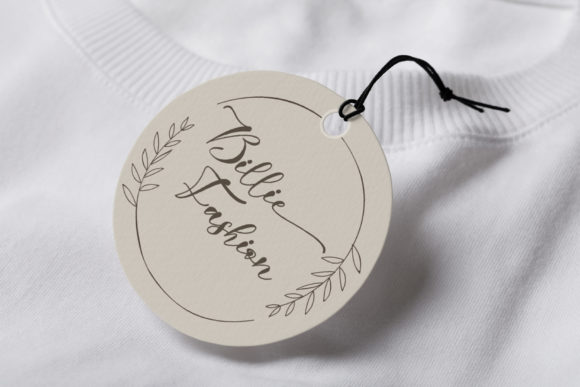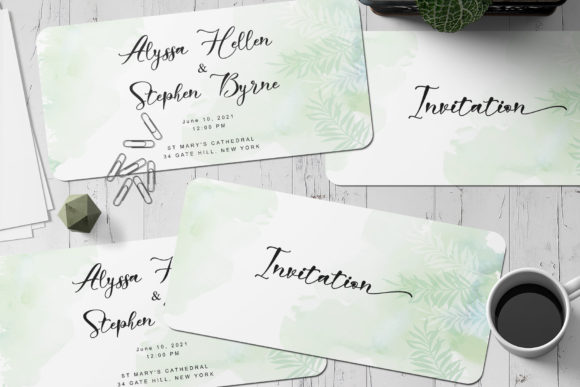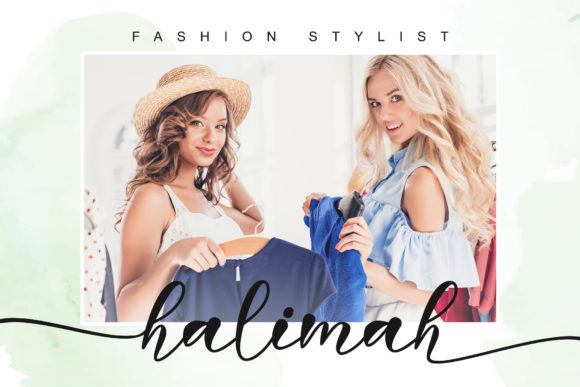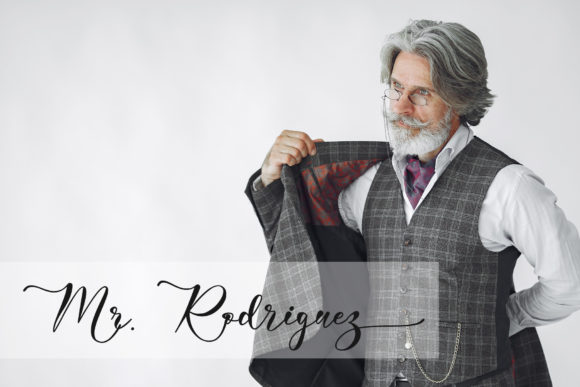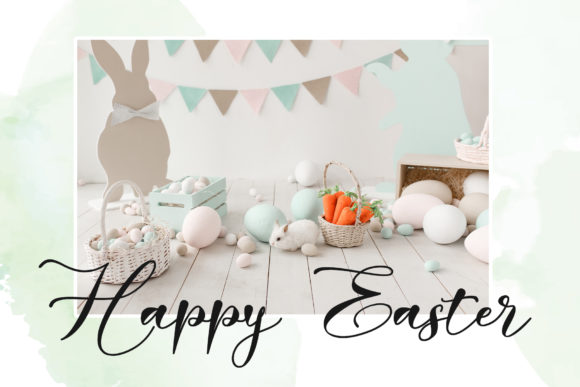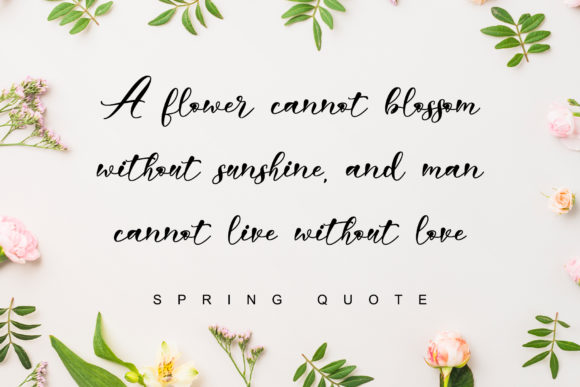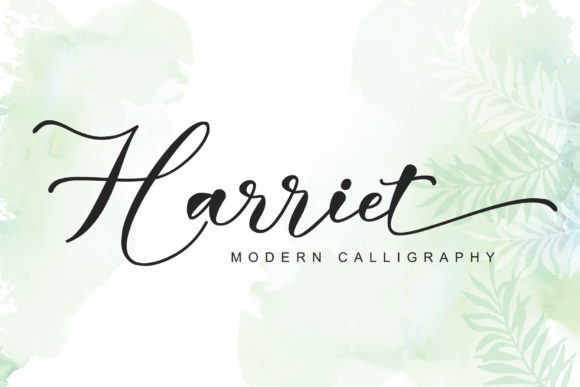
Discover the Elegance of Harriet Font: A Refined Handwritten Script
Are you looking for a font that exudes romance and sophistication? Look no further than Harriet Font, a beautiful handwritten script font that is sure to elevate your designs to the next level. With its delicate and refined strokes, Harriet is perfect for a wide range of applications, from greeting cards to headlines, and is guaranteed to add a touch of elegance to your next project.
What Makes Harriet Font So Special?
Harriet Font is a lovely script font that boasts a wide spectrum of applications. Its refined and delicate strokes make it perfect for designs that require a touch of sophistication and romance. Whether you’re creating greeting cards, invitations, or headlines, Harriet Font is sure to impress. Its elegant and flowing script is guaranteed to add a romantic feel to your next project, making it perfect for designers and crafters who want to create beautiful and memorable designs.
One of the standout features of Harriet Font is its PUA (Private Use Area) encoding. This means that you can access all of the glyphs and swashes with ease, giving you complete creative control over your designs. With PUA encoding, you can easily access alternative characters, ligatures, and swashes, allowing you to customize your designs and make them truly unique.
Applications for Harriet Font
Harriet Font is a versatile font that can be used for a wide range of applications, including:
- Greeting cards: Add a touch of elegance and romance to your greeting cards with Harriet Font.
- Invitations: Create beautiful and sophisticated invitations for weddings, parties, and other special events.
- Headlines: Use Harriet Font to create stunning headlines for your blog posts, articles, and social media graphics.
- Logos: Create a unique and memorable logo for your business or brand with Harriet Font.
- Stationery: Add a touch of elegance to your stationery, including letterheads, envelopes, and notebooks.
Tips for Using Harriet Font
Here are a few tips for using Harriet Font in your designs:
- Pair Harriet Font with a simple sans-serif font for a striking contrast.
- Use Harriet Font to create a focal point in your design, such as a headline or title.
- Don’t be afraid to get creative and try out different glyphs and swashes to add a personal touch to your design.
Why Designers and Crafters Love Harriet Font
Harriet Font is a favorite among designers and crafters for its elegance, versatility, and ease of use. Here are just a few reasons why:
- Unique and distinctive: Harriet Font is a one-of-a-kind font that will set your designs apart from the crowd.
- Elegant and sophisticated: Harriet Font exudes romance and sophistication, making it perfect for designs that require a touch of elegance.
- Easy to use: With PUA encoding, Harriet Font is easy to use and customize, even for designers who are new to script fonts.
In conclusion, Harriet Font is a refined and delicate handwritten font that is sure to add a touch of elegance and romance to your next project. With its PUA encoding and wide range of applications, Harriet Font is perfect for designers and crafters who want to create beautiful and memorable designs. Whether you’re creating greeting cards, headlines, or logos, Harriet Font is a versatile and elegant font that is sure to impress.